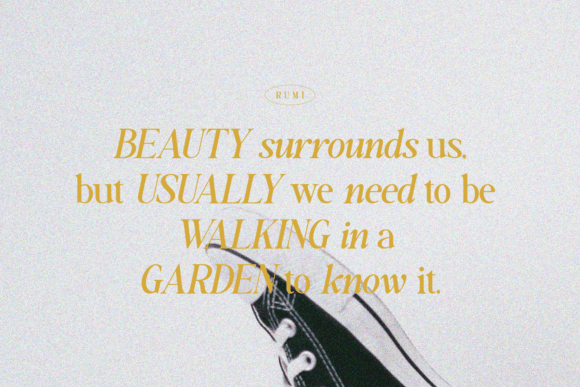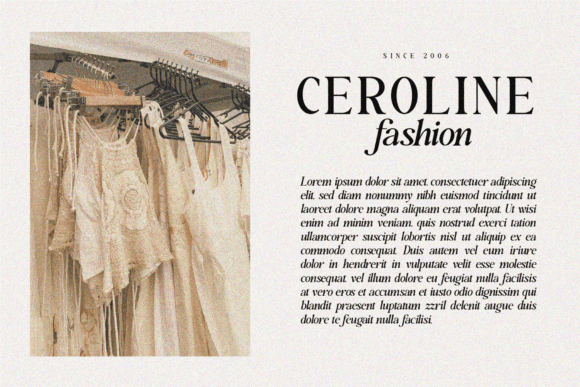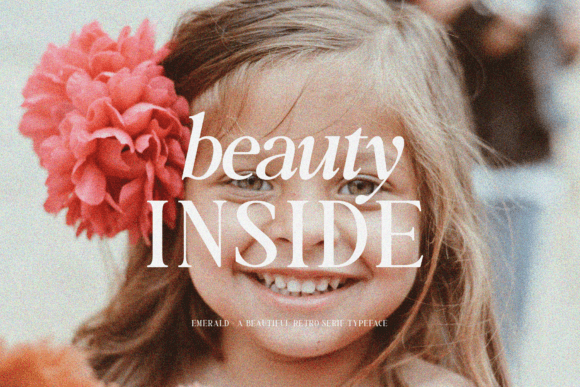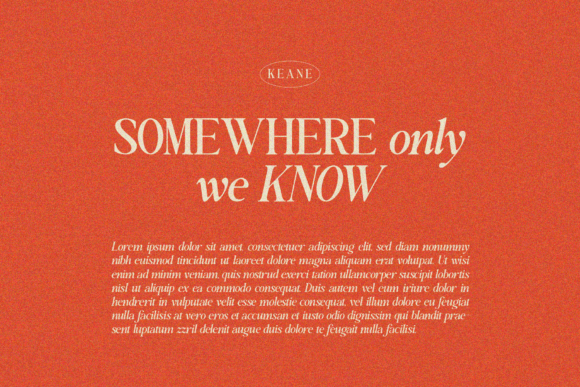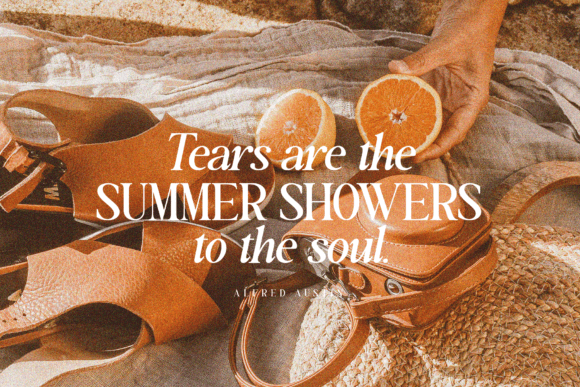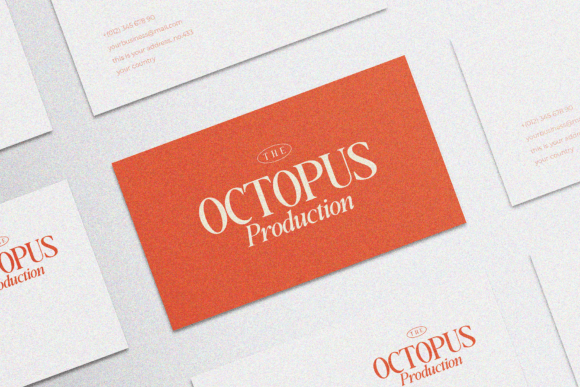
Introducing Emerald – A Beautiful Retro Serif Typeface
Are you tired of using the same old fonts for your designs? Look no further! We’re excited to introduce Emerald, a stunning retro serif typeface that’s perfect for adding a touch of elegance and sophistication to your projects. From every curve, Emerald exudes beauty and style, while still maintaining a retro feel that’s sure to capture attention.
A Perfect Blend of Style and Nostalgia
Emerald’s unique design combines the classic charm of serif fonts with a modern twist, making it an ideal choice for designers and crafters looking to add a touch of vintage flair to their work. Whether you’re creating business cards, brochures, or social media graphics, Emerald is sure to elevate your designs to the next level.
Key Features of Emerald Font
- Retro Serif Design: Emerald’s serif design is reminiscent of classic fonts from the past, but with a modern twist that makes it perfect for contemporary designs.
- Beautiful Curves: Every curve in Emerald has been carefully crafted to create a beautiful, flowing design that’s both elegant and stylish.
- Highly Versatile: Emerald is perfect for a wide range of design projects, from business cards and brochures to social media graphics and more.
- Easy to Read: Despite its ornate design, Emerald is surprisingly easy to read, making it perfect for body text and headlines.
Why Choose Emerald Font?
With so many fonts to choose from, why should you choose Emerald? Here are just a few reasons why Emerald stands out from the crowd:
- Unique Design: Emerald’s unique design makes it stand out from more traditional serif fonts, adding a touch of personality to your designs.
- Time-Saving: With Emerald, you can create professional-looking designs in no time, thanks to its easy-to-read design and versatile style.
Design Inspiration with Emerald Font
Emerald is a versatile font that can be used in a wide range of design projects. Here are a few ideas to get you started:
- Business Cards: Use Emerald to create professional-looking business cards that make a lasting impression.
- Brochures: Emerald is perfect for creating eye-catching brochures that showcase your products or services.
- Social Media Graphics: Use Emerald to create stunning social media graphics that grab attention and drive engagement.
In conclusion, Emerald is a beautiful retro serif typeface that’s perfect for designers and crafters looking to add a touch of elegance and sophistication to their designs. With its unique design, versatility, and ease of use, Emerald is sure to become a go-to font for anyone looking to create stunning designs. So why wait? Download Emerald today and start creating beautiful designs that stand out from the crowd!